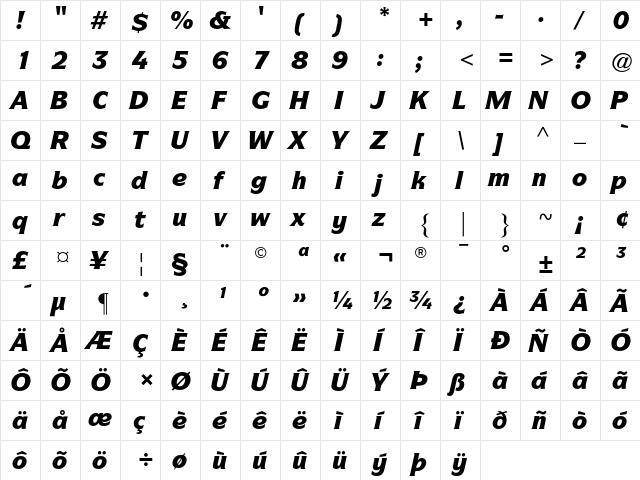
ITC Symbol Black Italic
Design Context for ITC Symbol Typeface
ITC Symbol offers clean, dependable letterforms without strong stylistic allegiance, making it a practical choice for designers who need flexibility. The dynamic lean of this cut emphasises speed and emphasis in any layout.
Pro Tip: Try ITC Symbol for annotation and caption copy alongside an upright companion — the contrast in angle creates a dynamic but ordered typographic system.